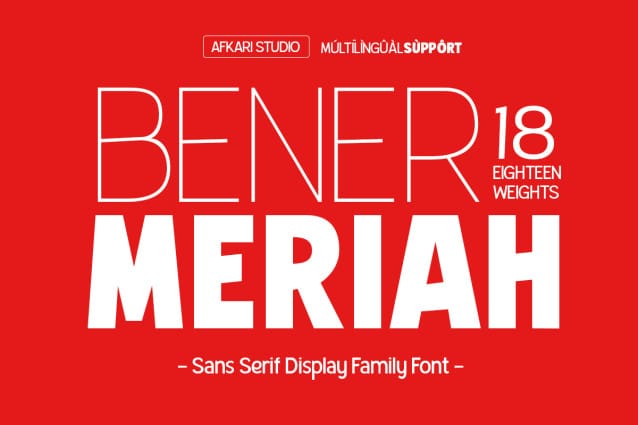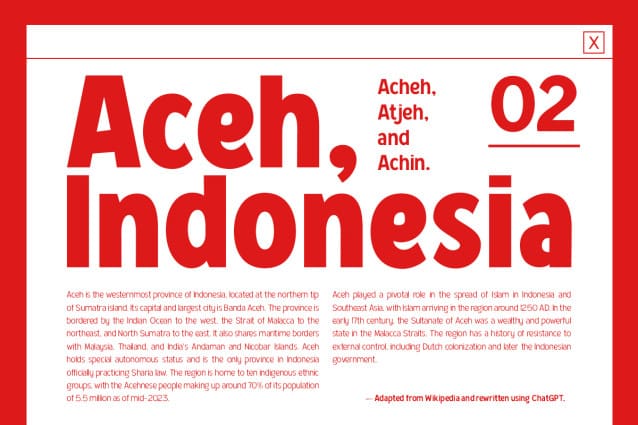
Bener Meriah Font
Bener Meriah Font is a sophisticated and highly versatile sans-serif font family meticulously crafted for designers who demand both elegance and functionality. This typeface offers an impressive range of 18 weights, from the delicate and airy Thin to the commanding and bold Black, with matching Italics for each weight. The result is a comprehensive toolkit that meets the needs of modern design projects across a variety of styles and applications.
Bener Meriah is designed to be a true workhorse, capable of adapting to any creative endeavor. Its clean, sans-serif lines ensure it excels in applications where readability is essential, whether in large-format displays or intricate editorial layouts. This font family bridges the gap between classic and contemporary styles, making it a reliable choice for branding, advertising, packaging, and beyond.
Each weight of Bener Meriah has been carefully adjusted for optimal balance, ensuring that even the thinnest and boldest options maintain visual harmony. The addition of matching italics further expands the font’s versatility, allowing designers to add emphasis and variety without sacrificing cohesion.
Bener Meriah – Sans Serif Display Family Font